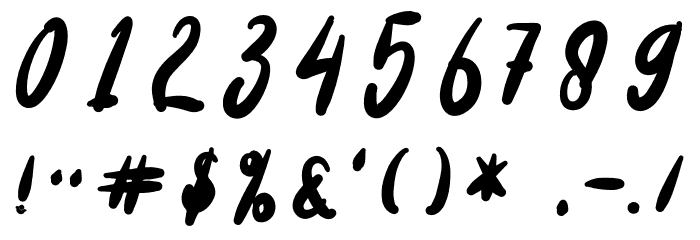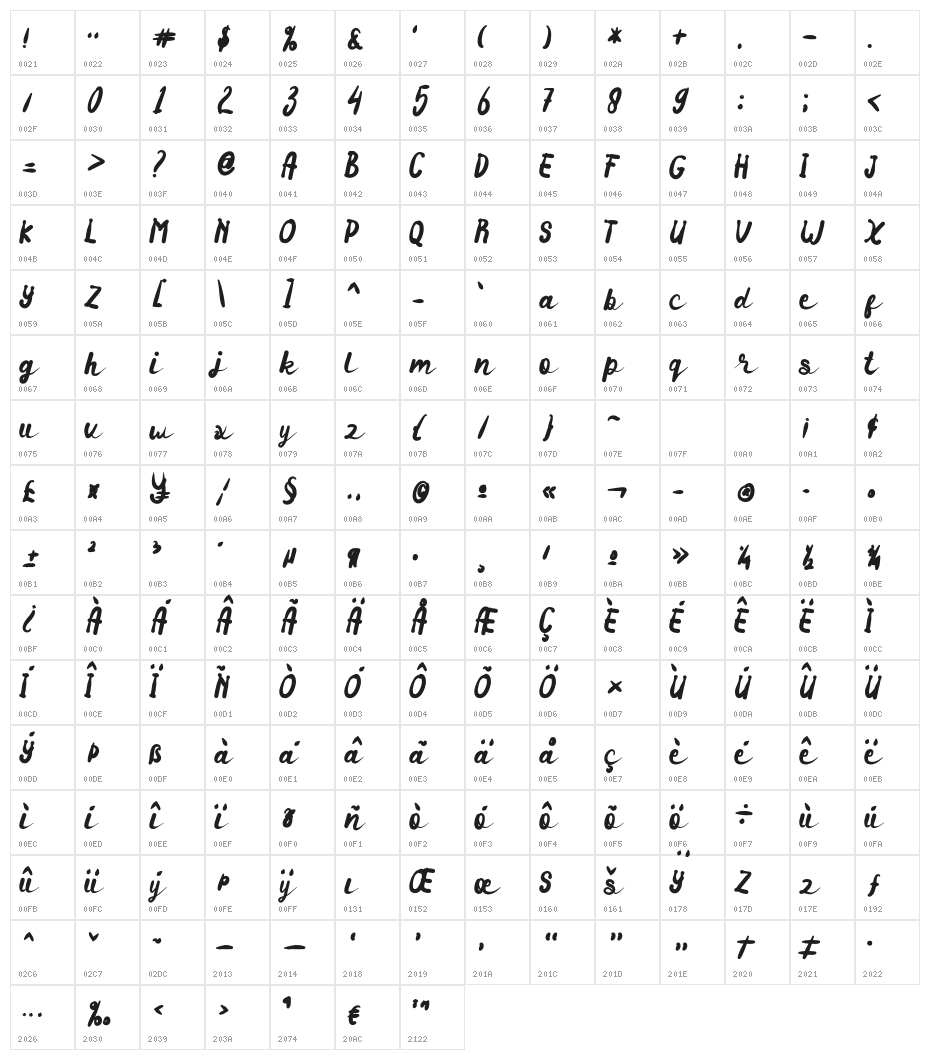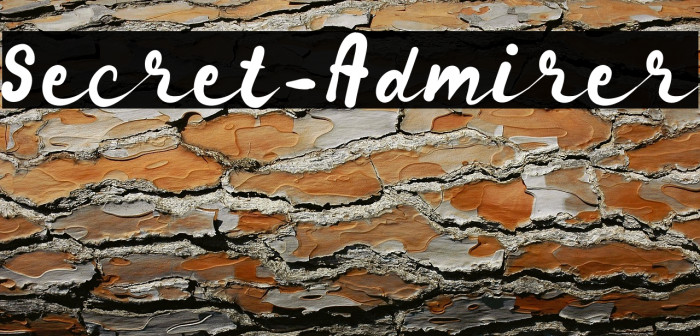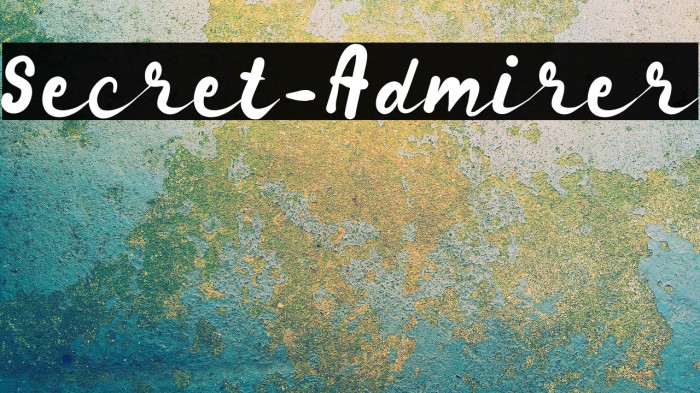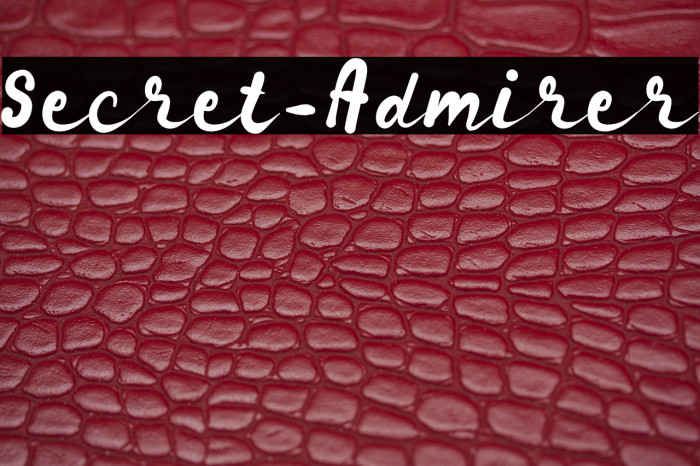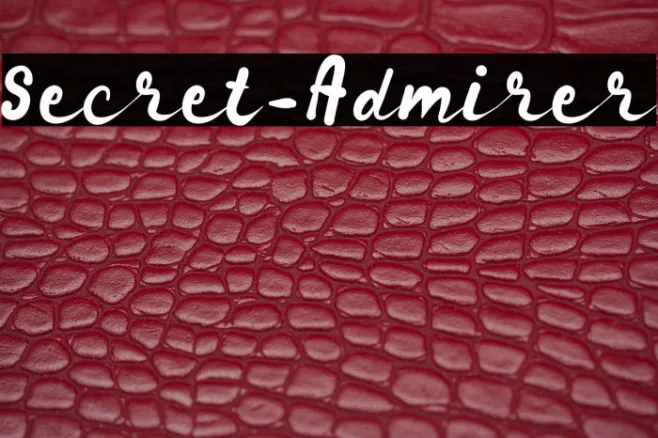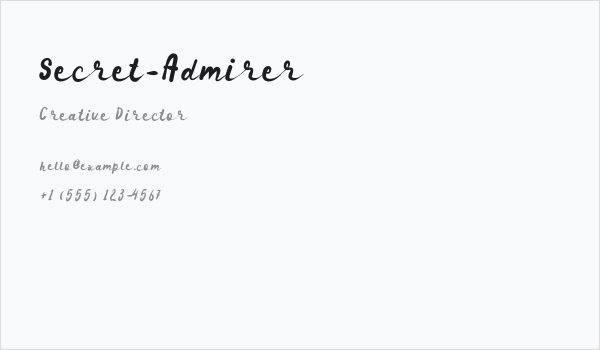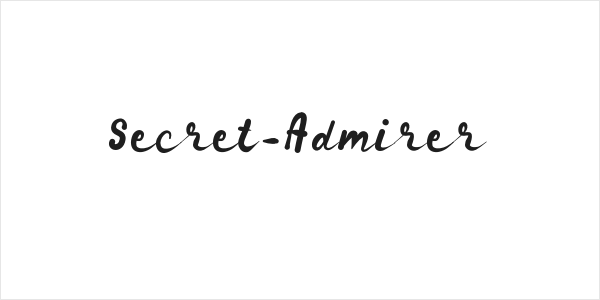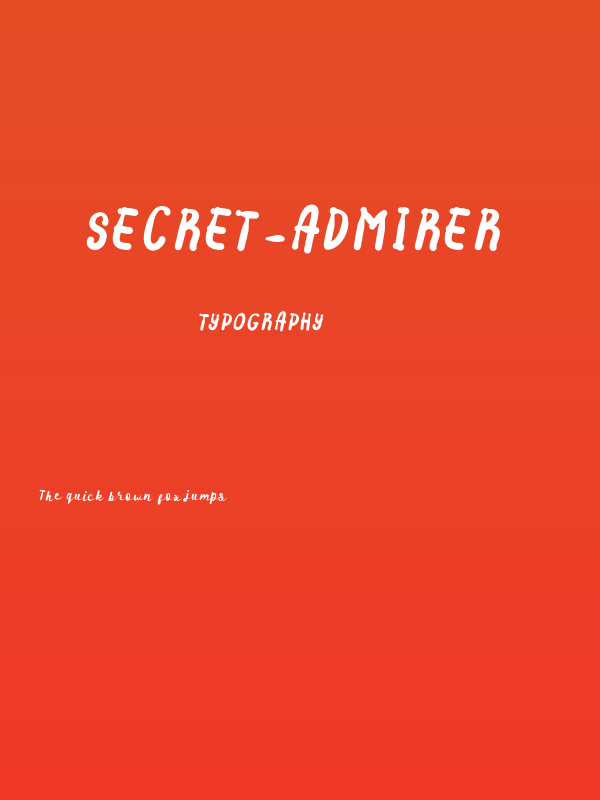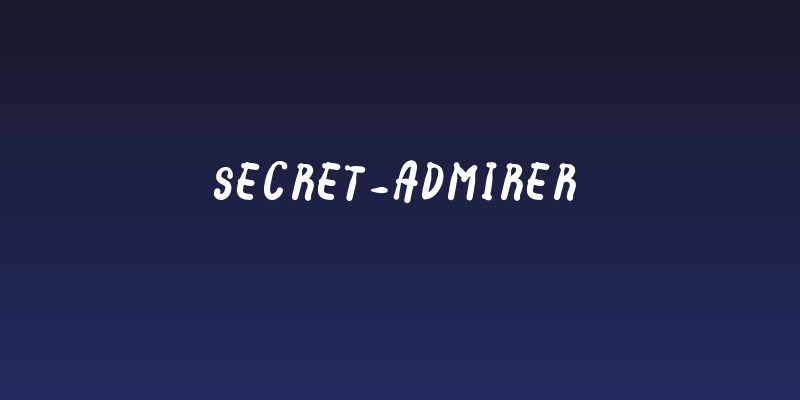
Secret_Admirer Font
Secret_Admirer Description
This font features a playful and dynamic script style with a handwritten appearance. The letters are slightly slanted, giving a sense of movement and fluidity. The strokes are bold and rounded, with a consistent thickness throughout, creating a harmonious and cohesive look. The uppercase letters are distinct and easily readable, while the lowercase letters maintain a casual and informal vibe. The numbers and special characters follow the same stylistic approach, ensuring uniformity across all glyphs. This font is ideal for projects that require a personal touch or a creative flair.
| Proposed Projects | Greeting cards, invitations, branding, social media graphics, and creative posters. |